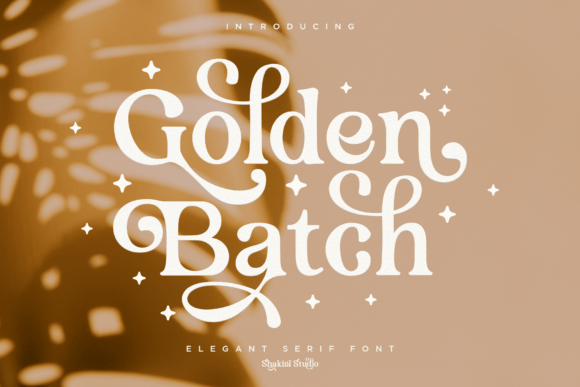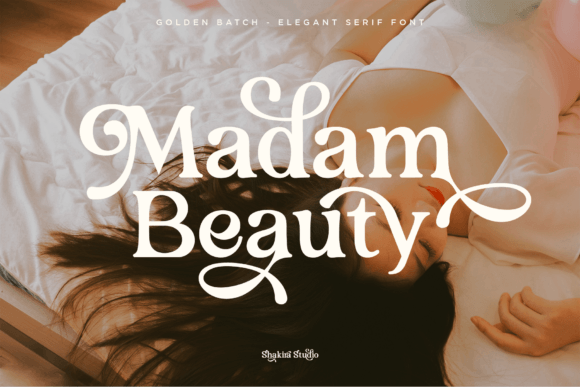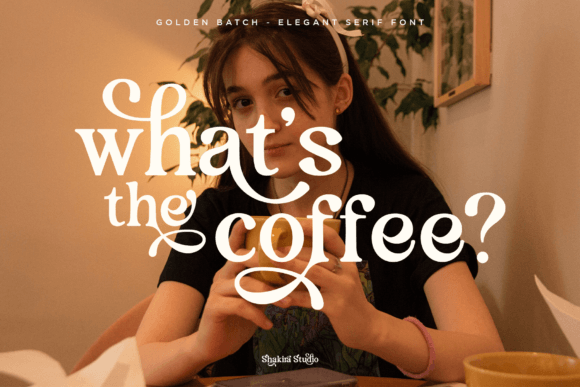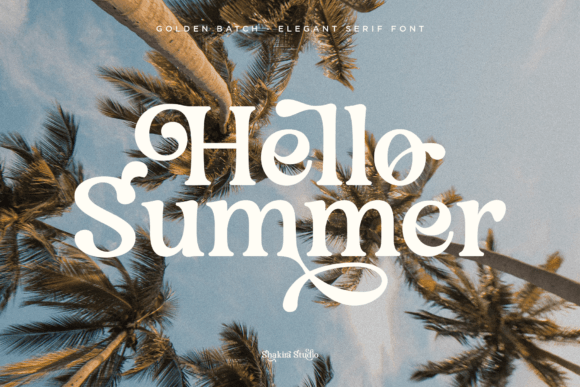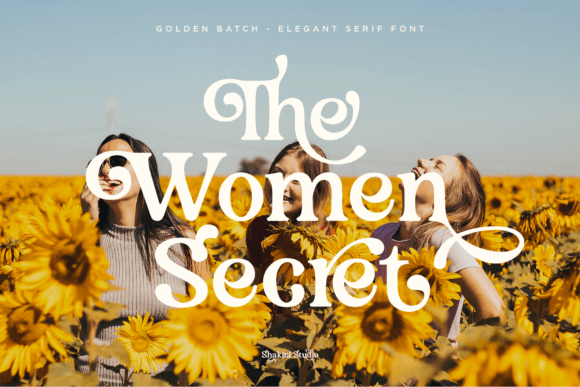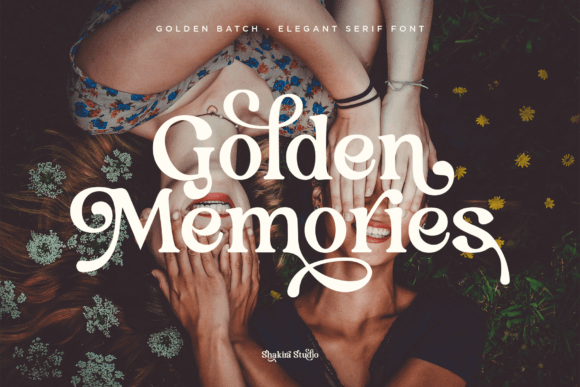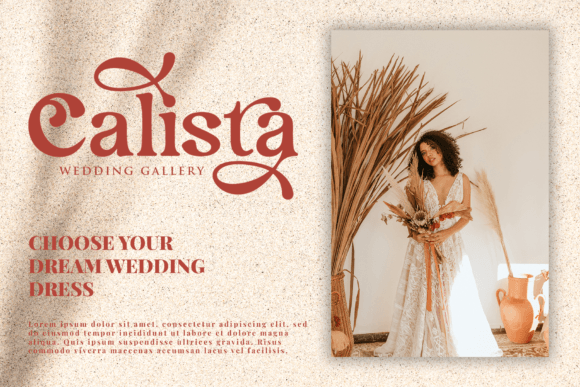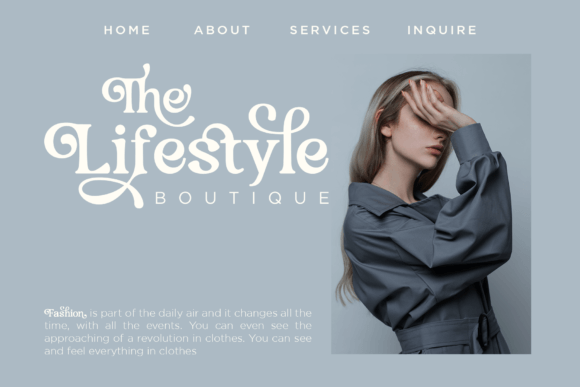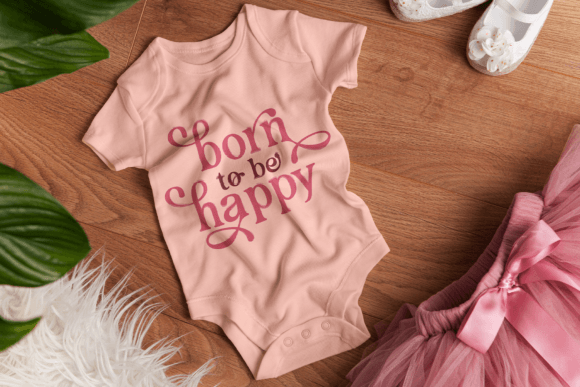
Golden Batch Font
Golden Batch is an Elegant Serif Font. Create bold, gorgeous headlines and elegant designs with a vintage flair. Its contrasting lines and curved terminals give a sleek, elegant look to logos, holiday cards, wedding invitations, quotes, advertisements, and more.